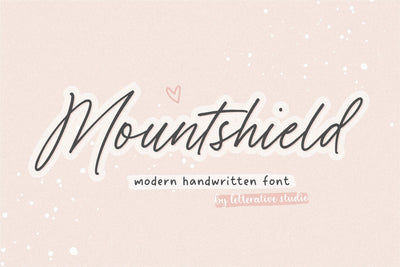
Mountshield Modern Handwritten Font
Introducing by Letterative Studio : Mountshield Font
Mountshield is a Modern Handwritten Font
Mountshield is a unique and elegant handwritten script font. It looks beautiful on a variety of designs requiring a personalized style, such as wedding invitations, thank you cards, greeting cards, logos, and so on.